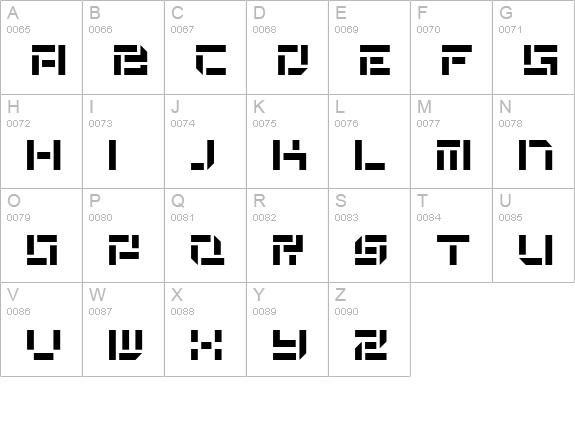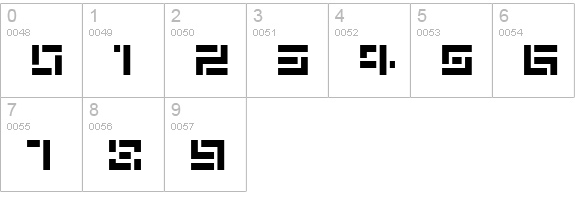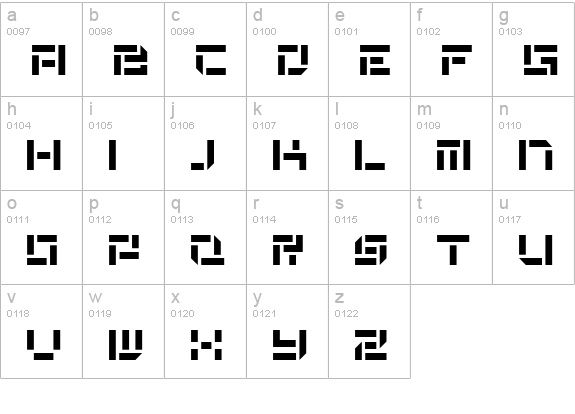
De Stencil NF font is a bold and versatile typeface that combines a classic stencil design with a modern twist. Its clean lines and distinct characters make it perfect for a wide range of design projects, from posters and logos to packaging and signage. The font's sharp edges and geometric shapes give it a unique and eye-catching look that is sure to make your text stand out. The best part about De Stencil NF font is that it is completely free to download! You can get your hands on this stylish typeface at FontsMarket.com, where you can easily access and install it for use in your creative endeavors. Whether you're a professional designer looking to add a fresh new font to your collection or a hobbyist seeking to spice up your projects, De Stencil NF font is the perfect choice for adding a touch of modern sophistication to your work. Download it today and start creating stunning designs with this fantastic free font!